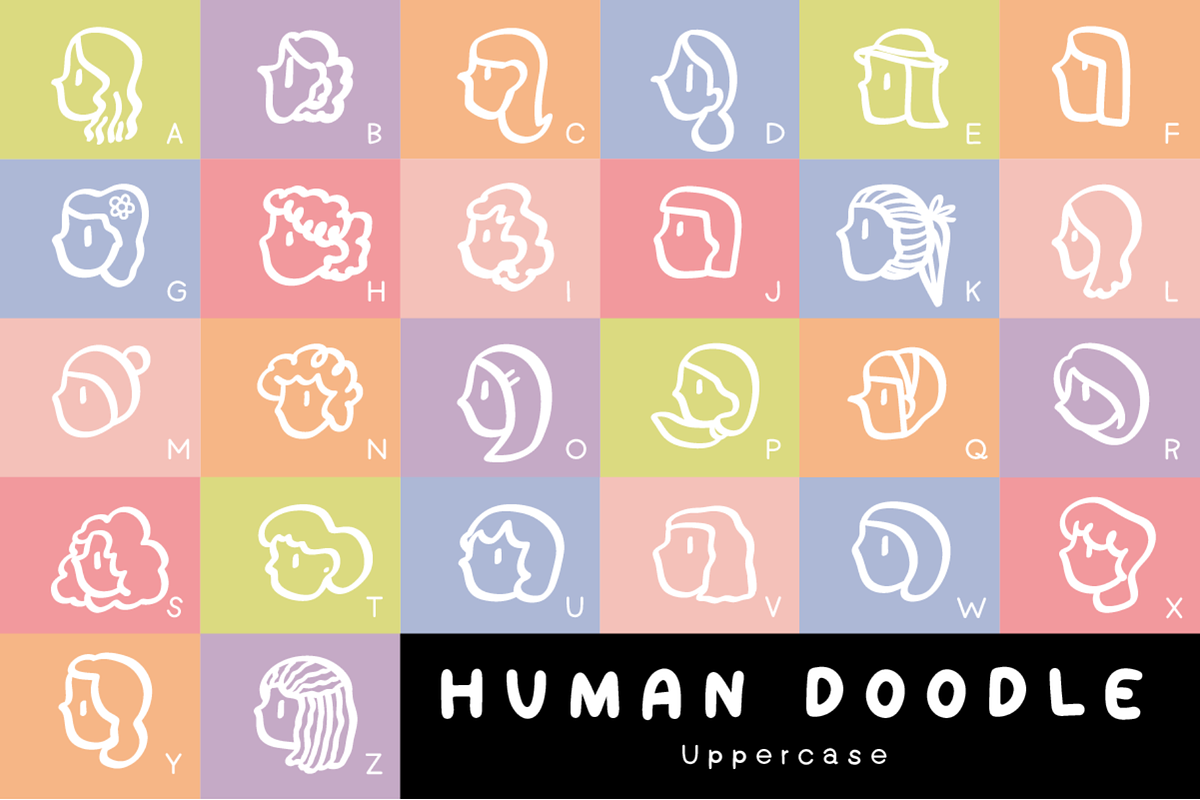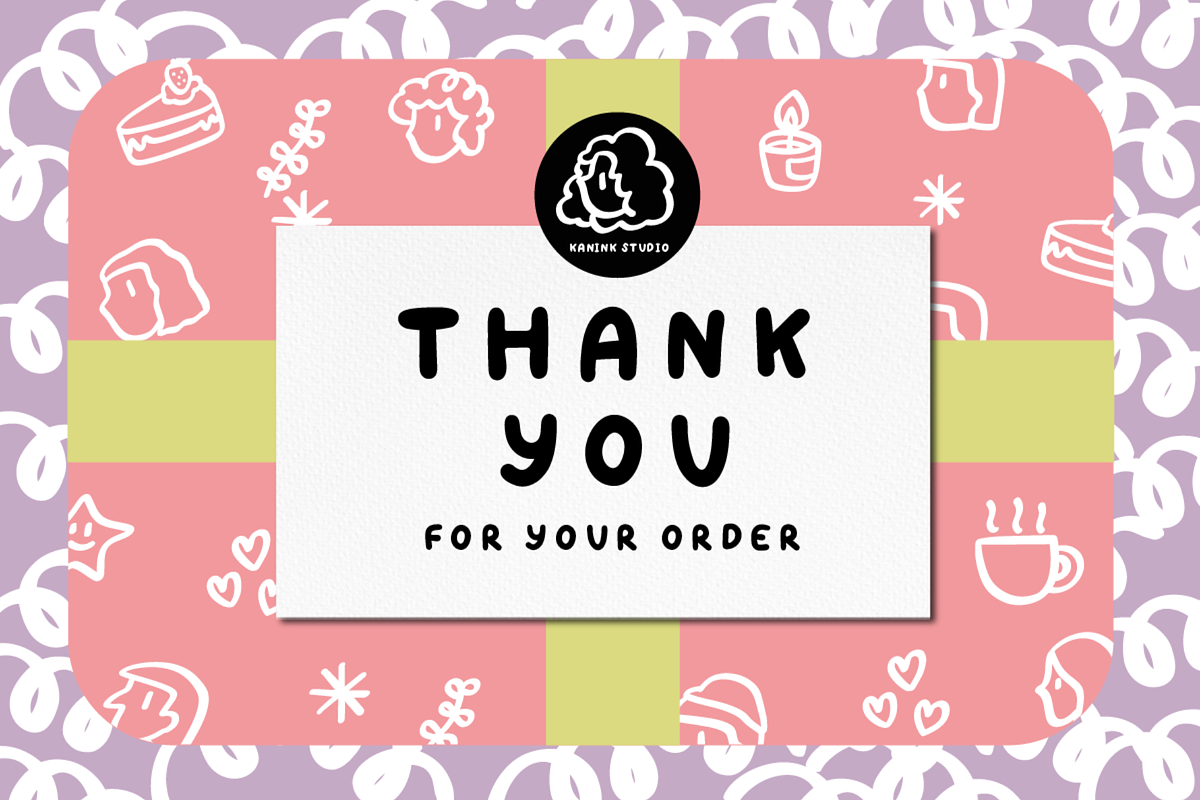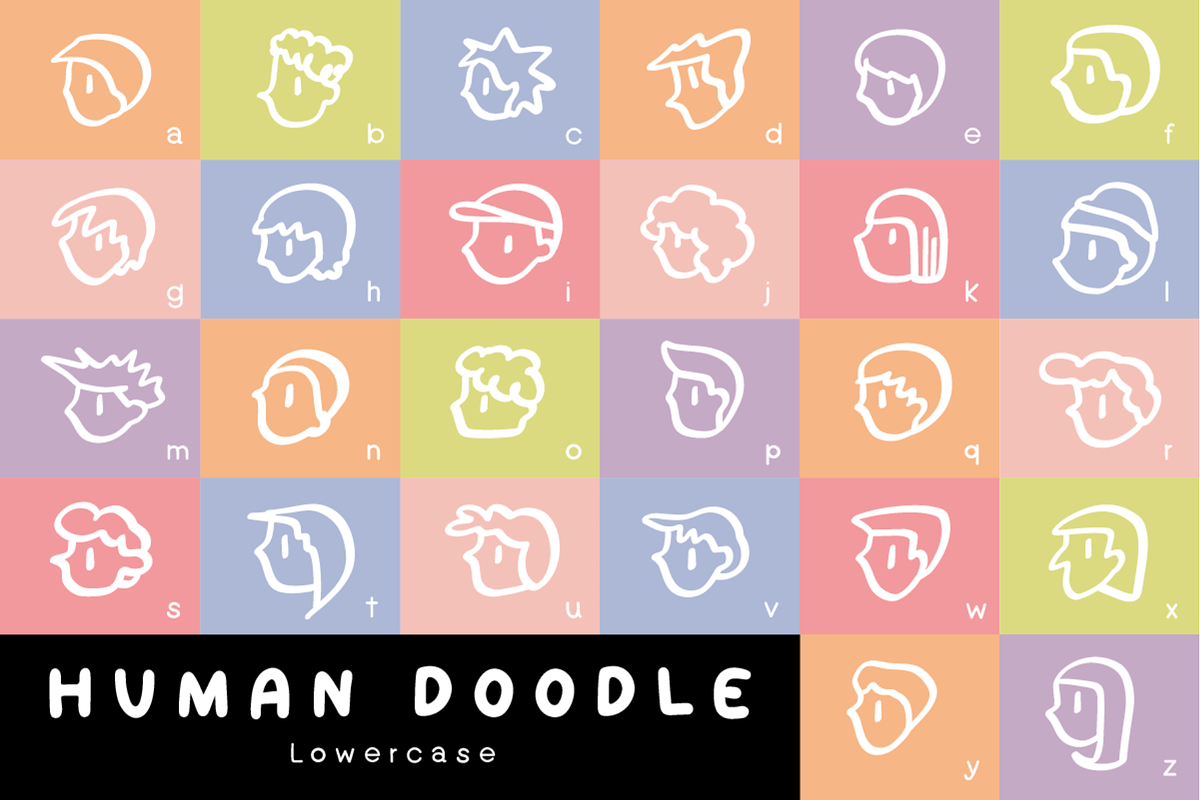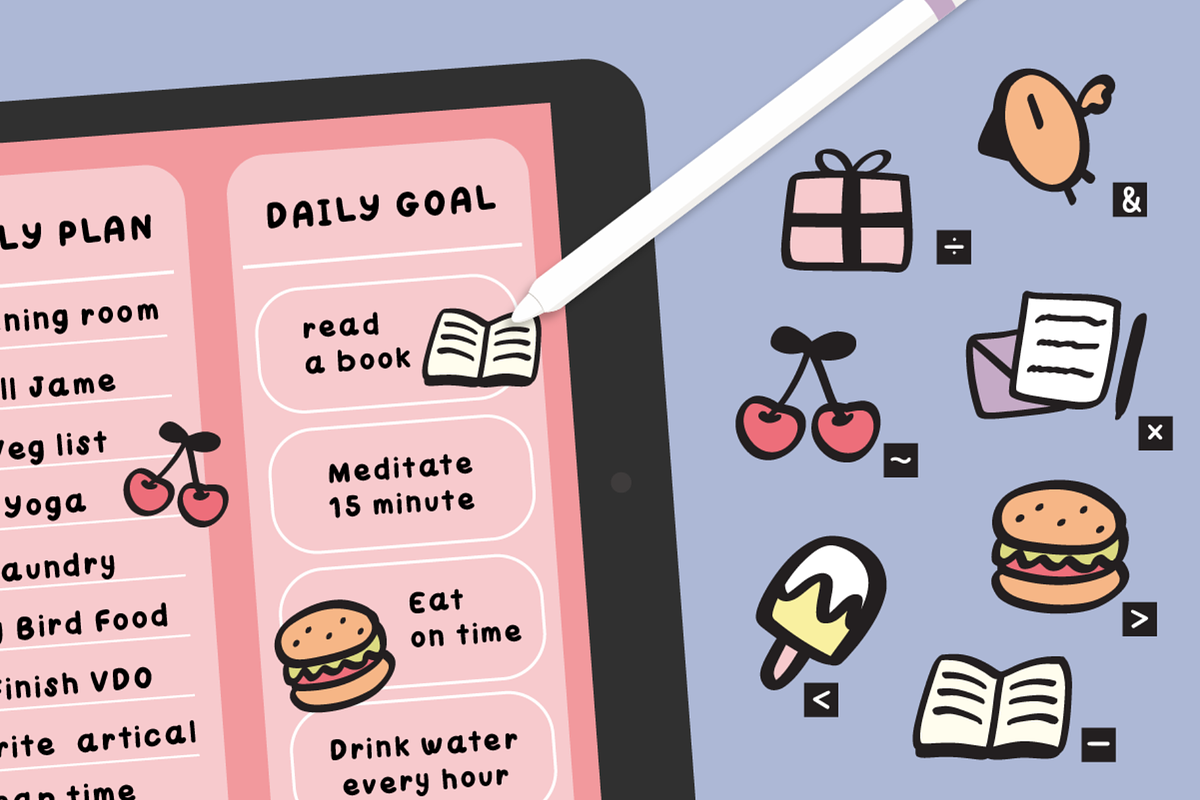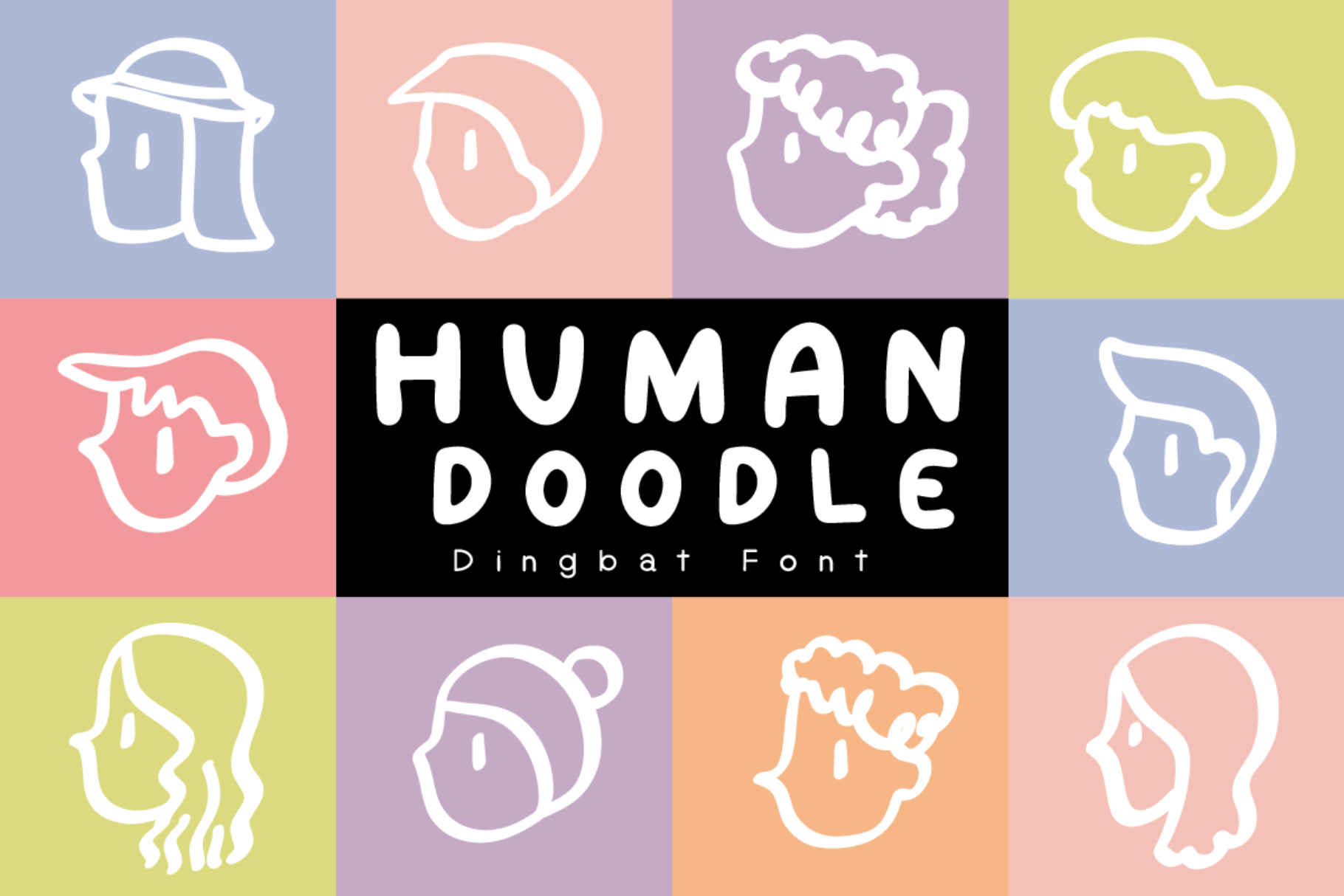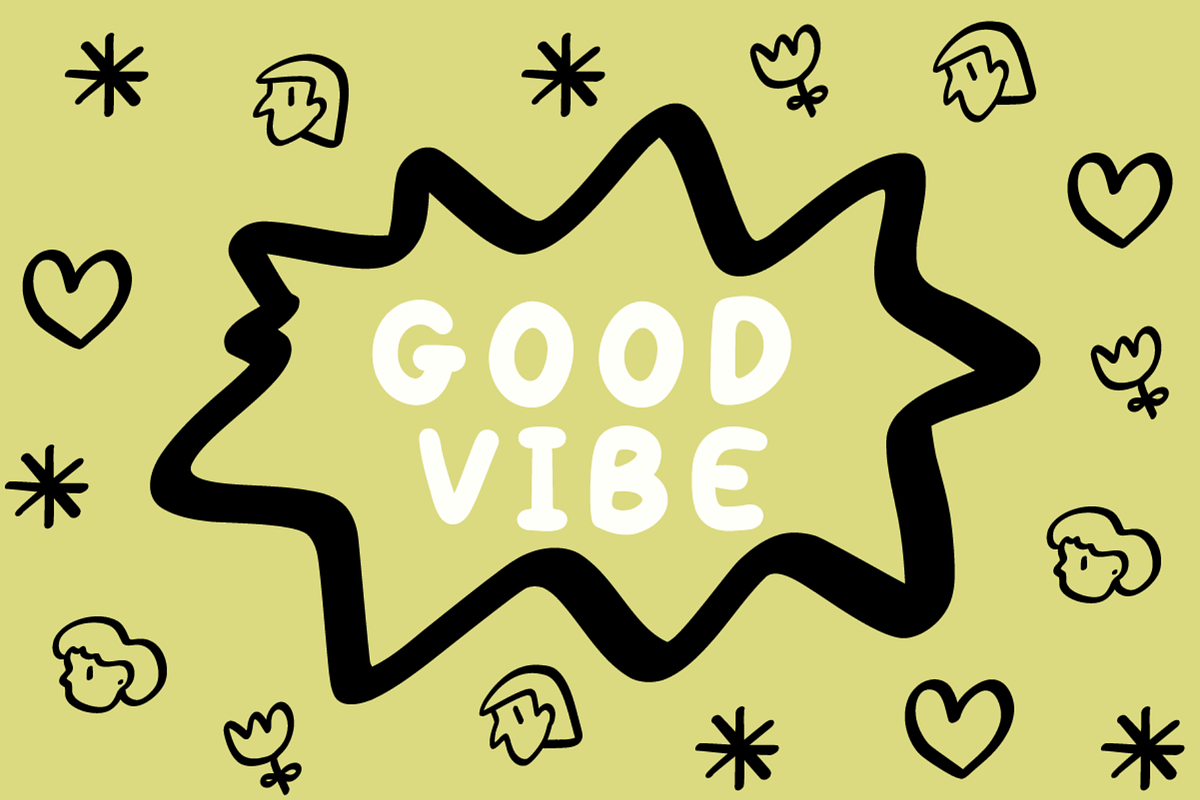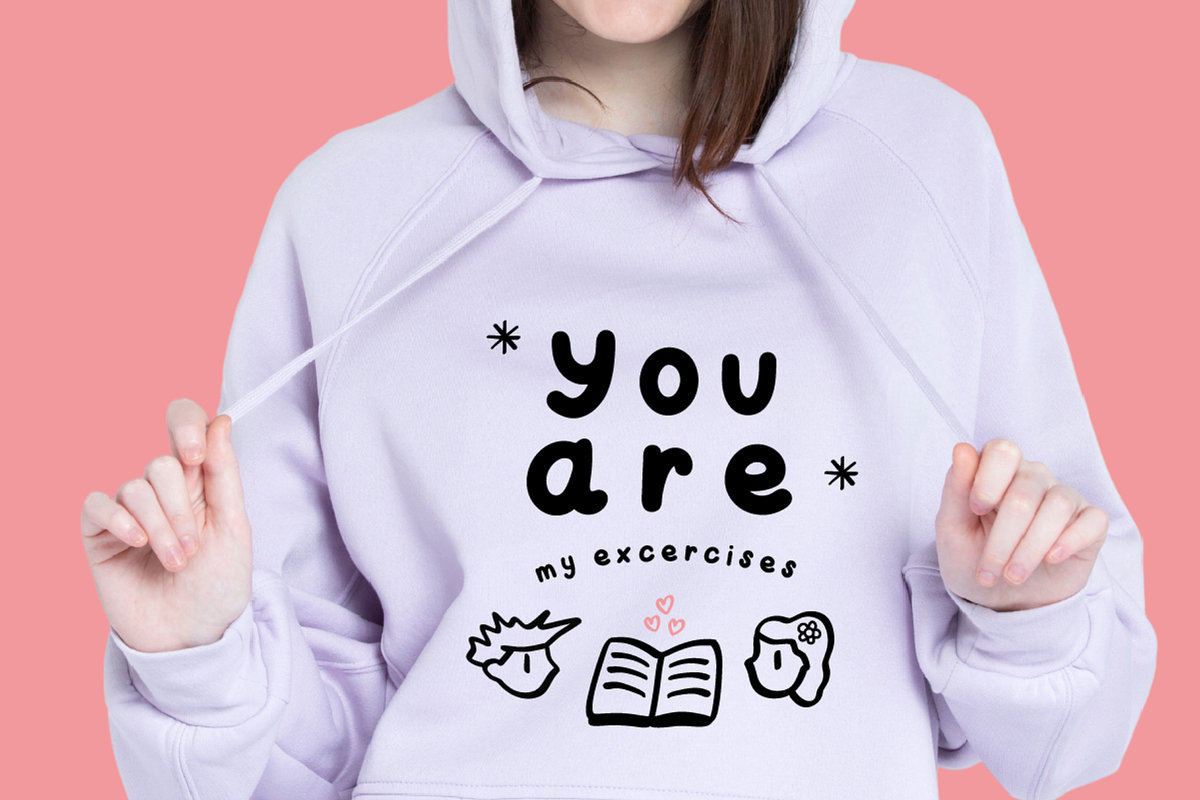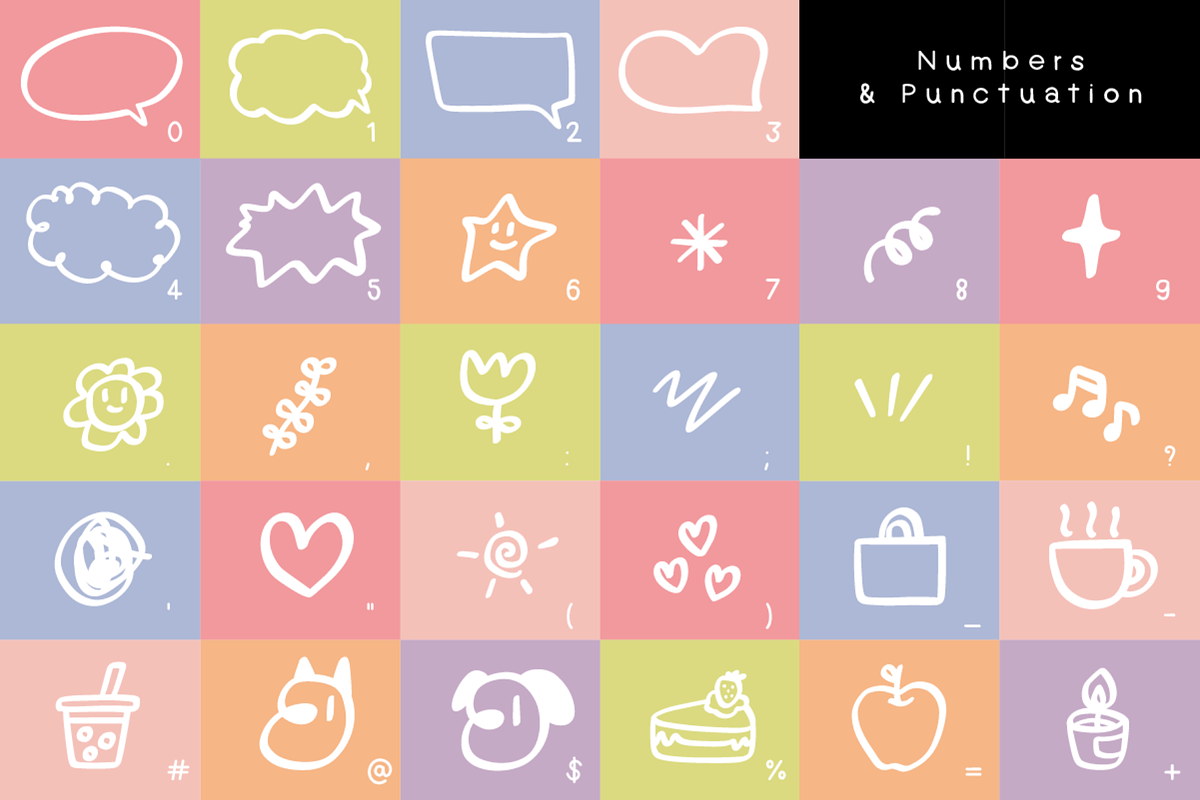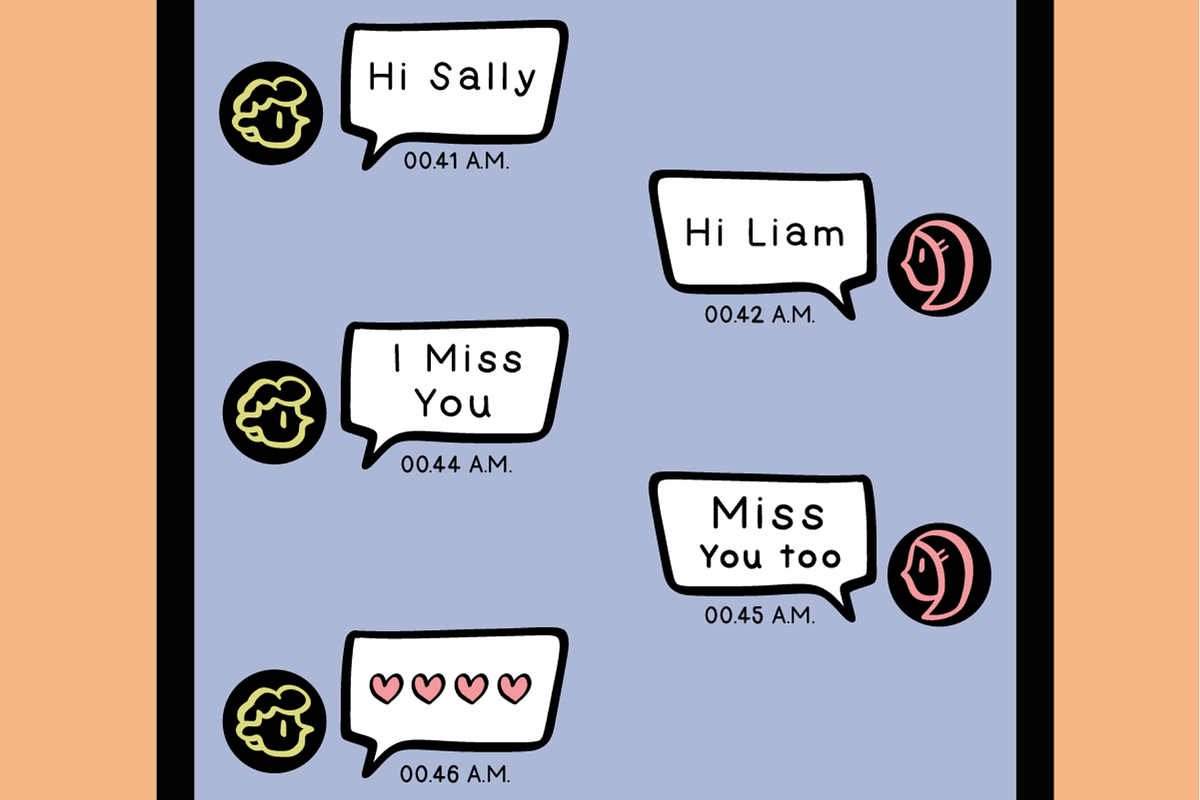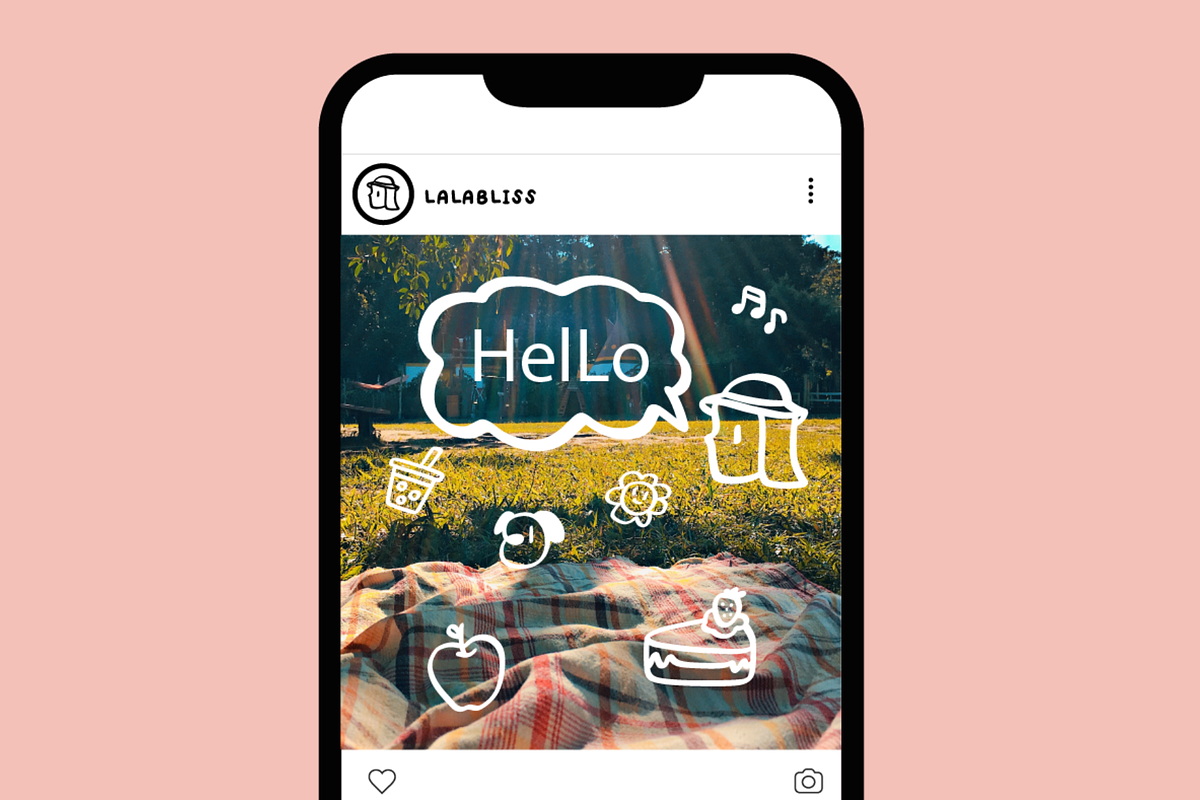
Human Doodle - Dingbat Font
The Human Doodle Cute Dingbat font is versatile and can be used for a variety of purposes. It is an excellent choice for any design that aims to capture a light-hearted and whimsical aesthetic. With its inherent cuteness and handcrafted appeal, this font adds charm and creativity to any project.